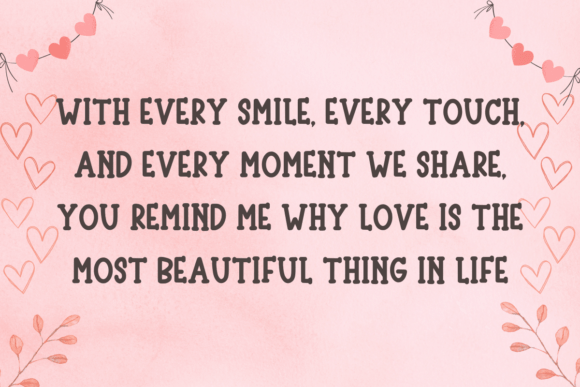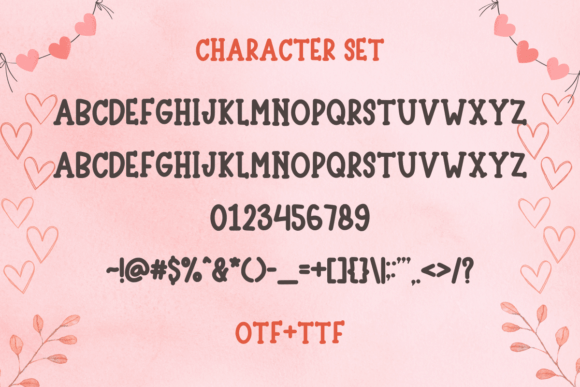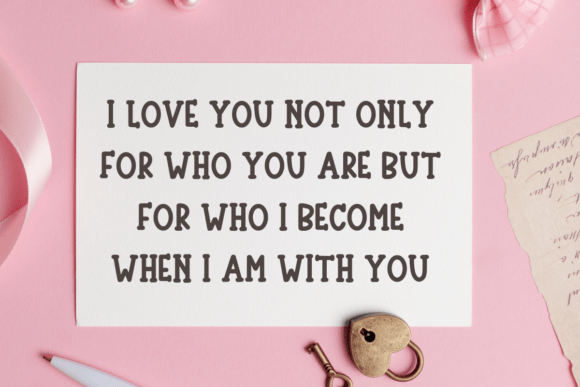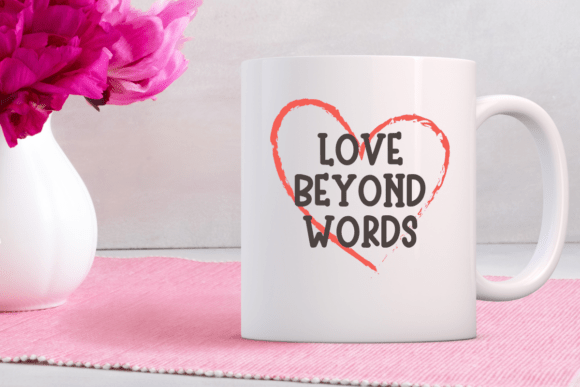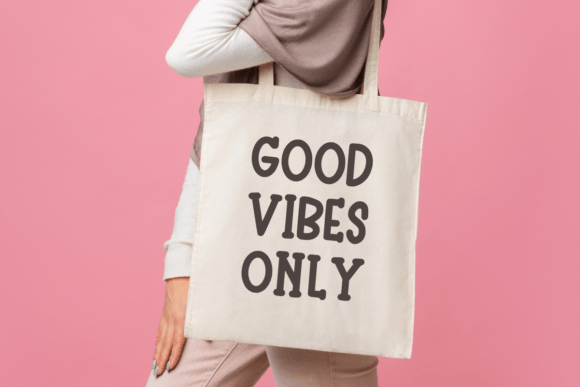
Introduction to February Concept Font
February Concep is a fun and playful font that’s perfect for crafts, planners, KDP, stickers, greeting cards, and more.
With its cute and friendly style, it works great for Cricut, sublimation, and creative DIY projects Ideal for crafters, designers, and makers.